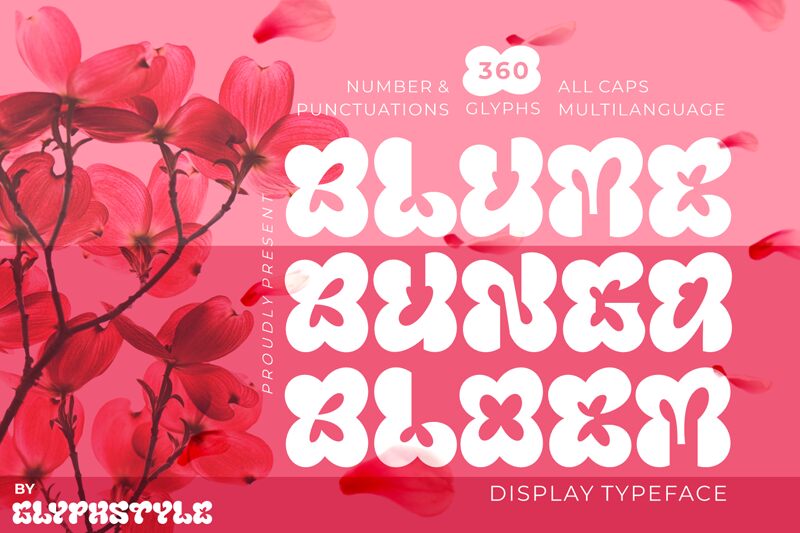
Blumebungabloem
Blume Bunga Bloem font, created by Glyphstyle, is a bold display typeface with a groovy appearance. This retro and ornamental font has an expressive style influenced by the psychedelic era. Its letters are unique, artistic, and decorative with an eye-catching appearance that’s capable of spicing up any project from packaging design to social media posts.